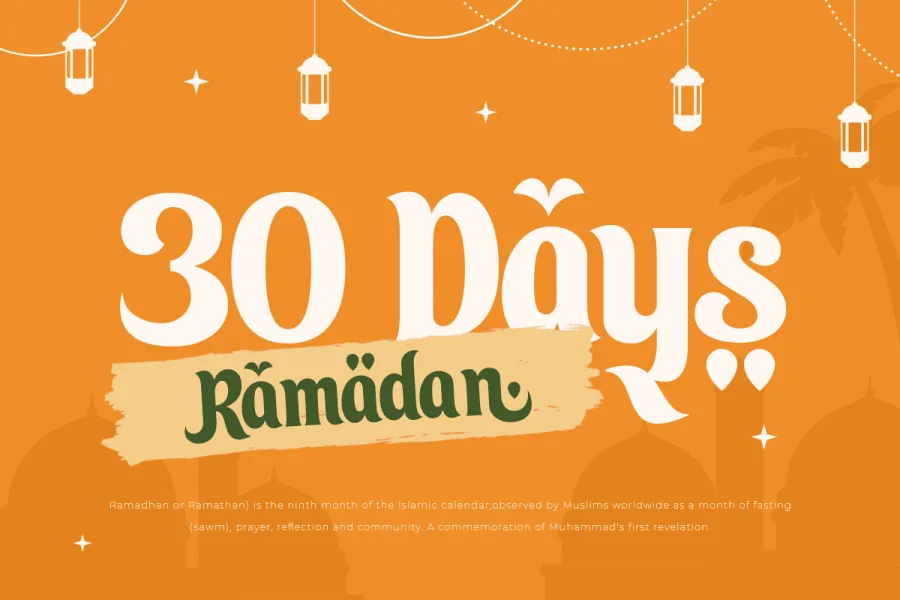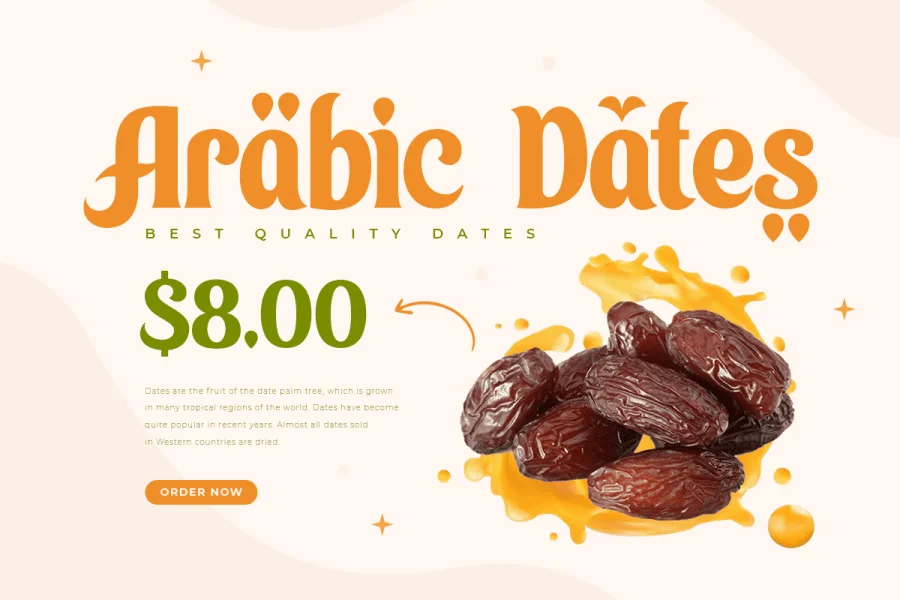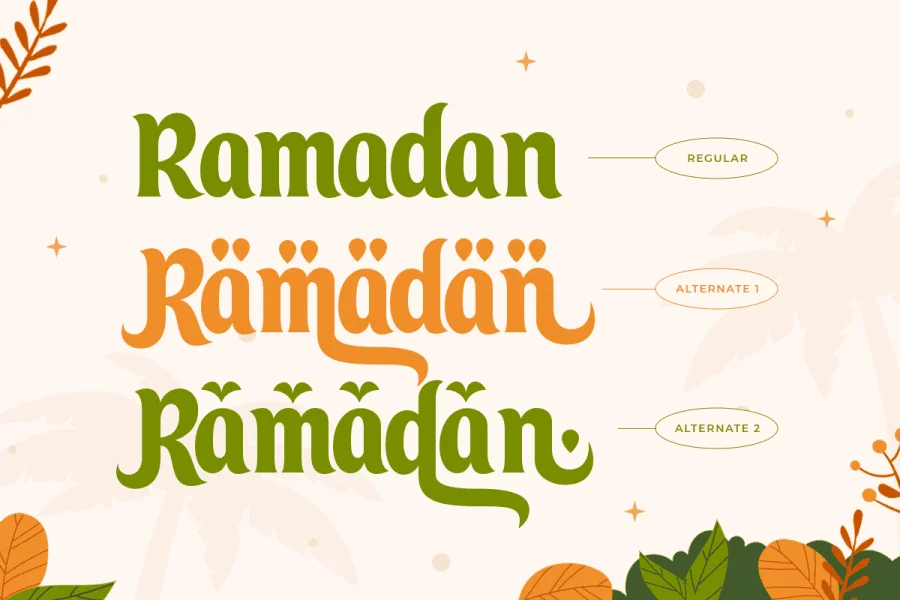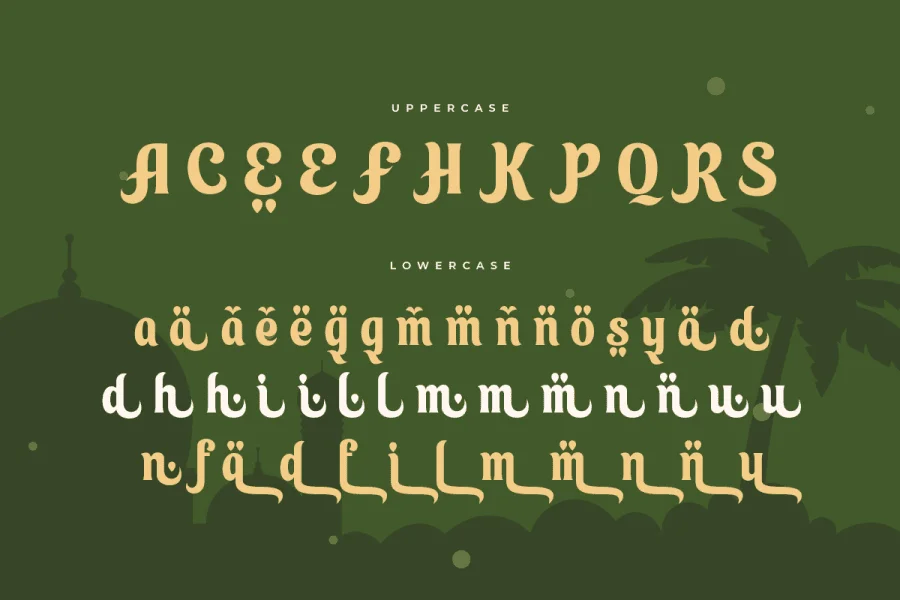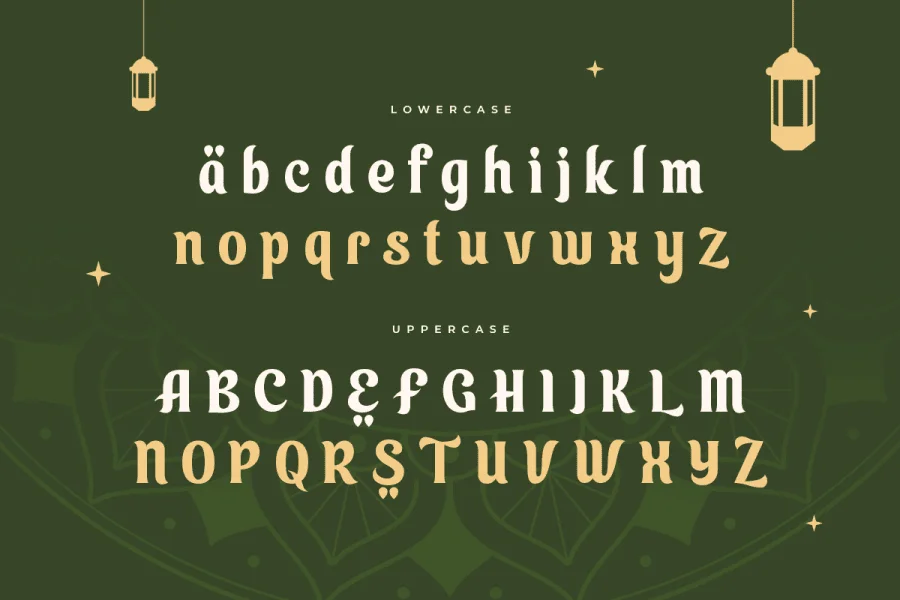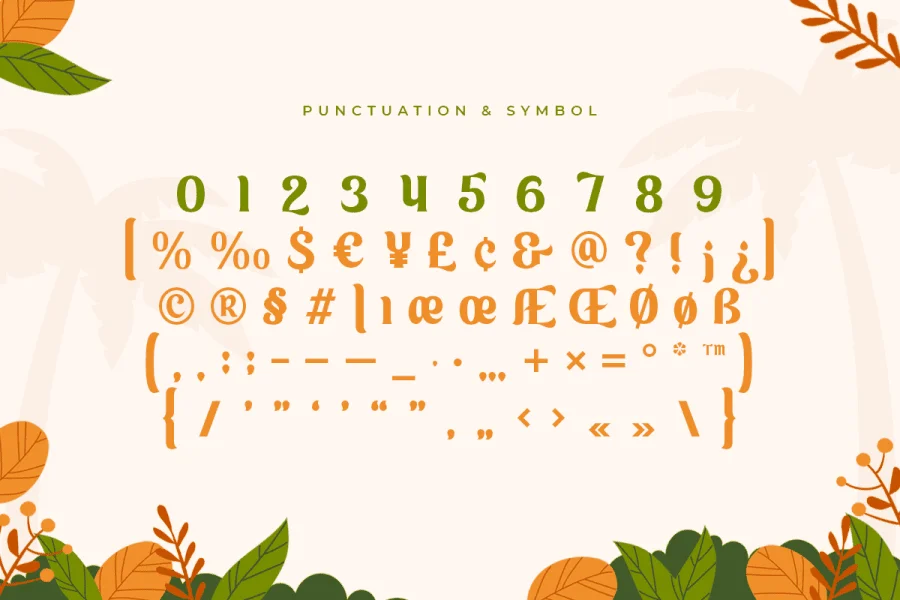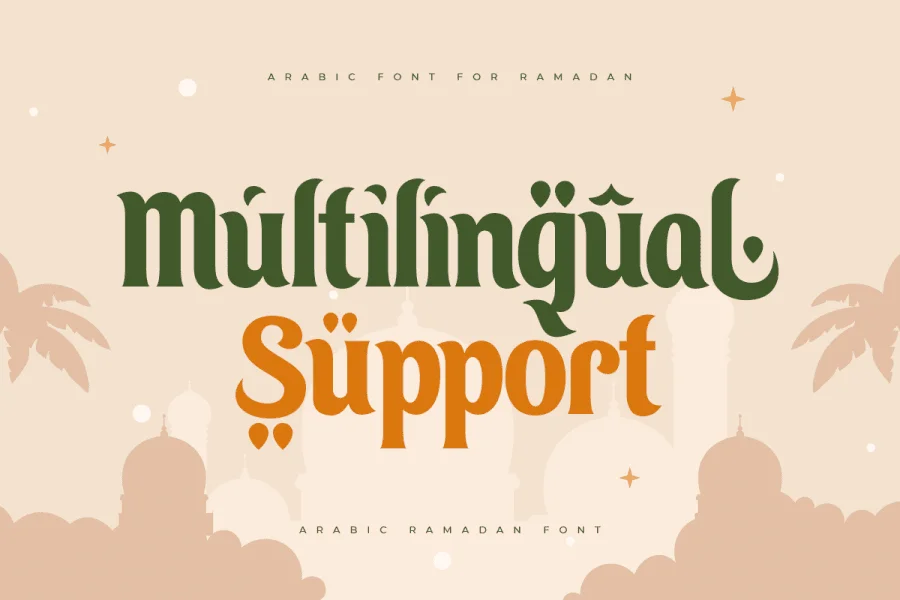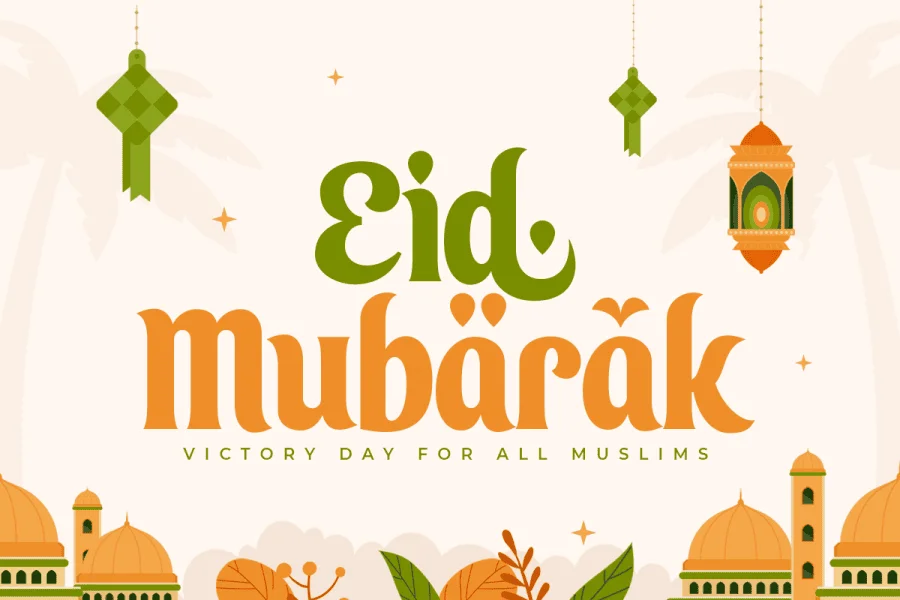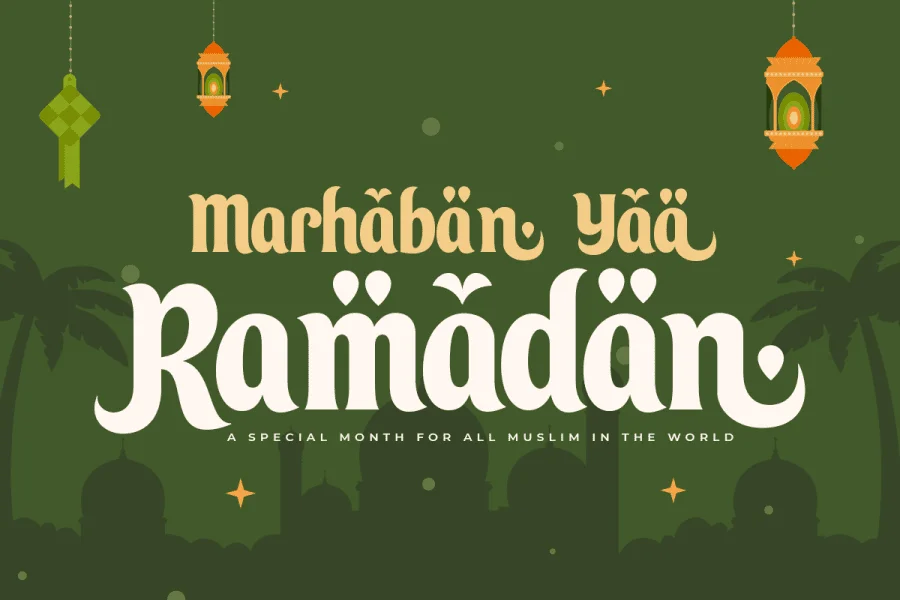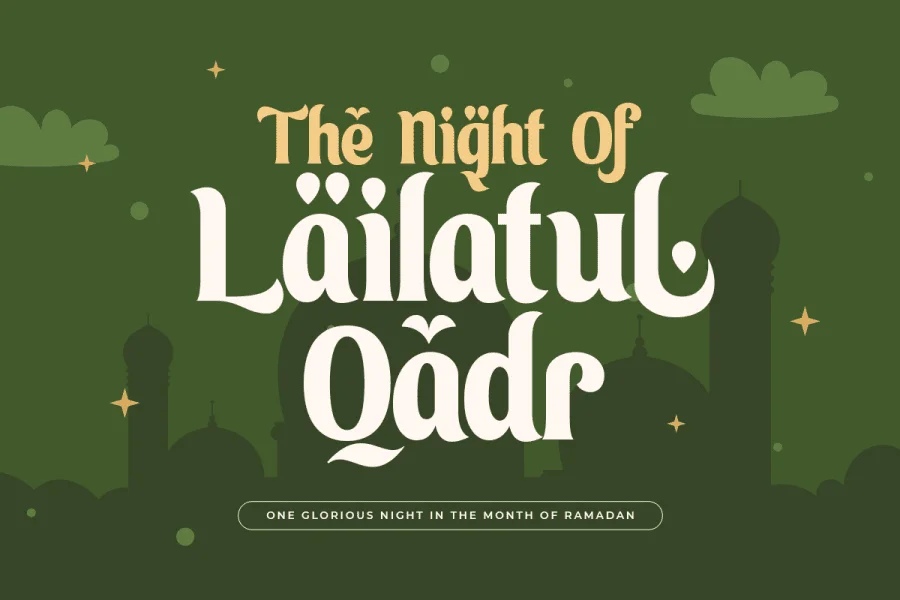
Arabic Ramadan Font is a fancy, unique, and versatile arabic font, that you can combine to get any variations and unique shapes easily just in seconds with choose alternates of them. It is a serif display font with moderate contrast that perfect for moslem branding projects, logo, wedding designs, social media posts, advertisements, product packaging, product designs, label, photography, watermark, invitation, stationery, and any projects, it makes with a high level of legibility.
- Stylistic alternates